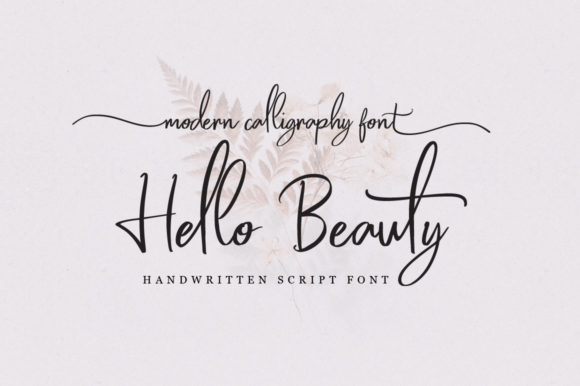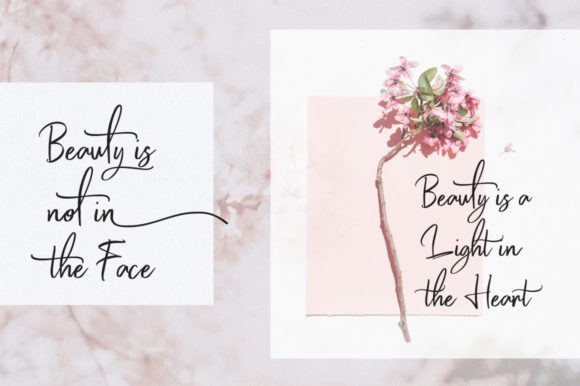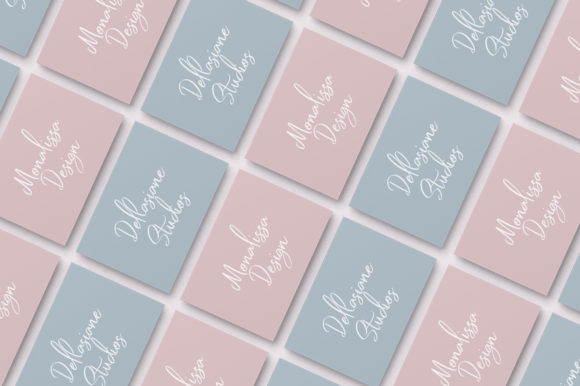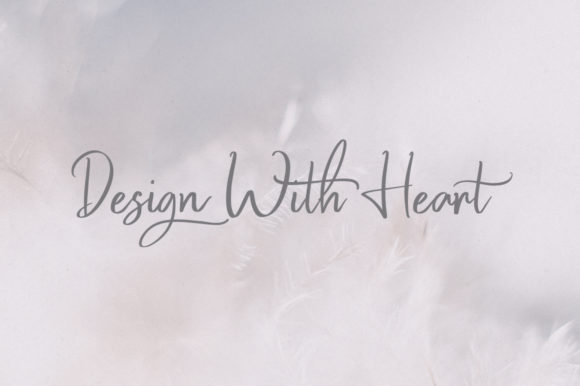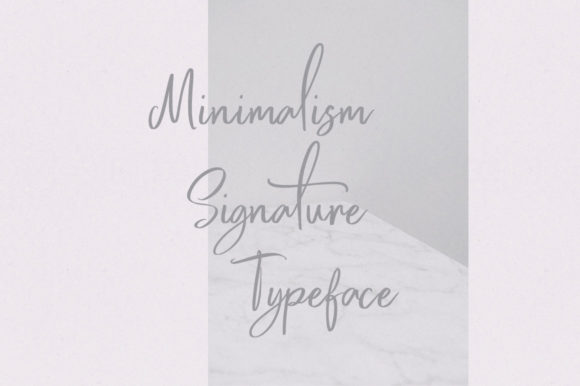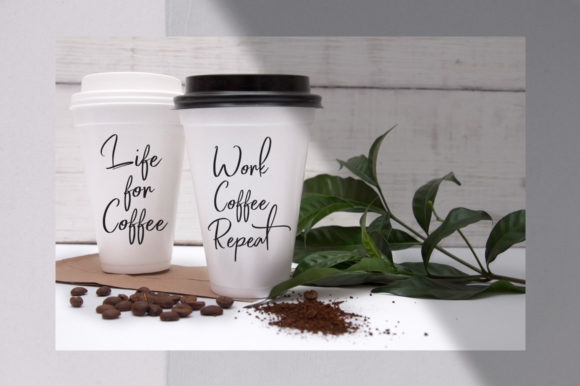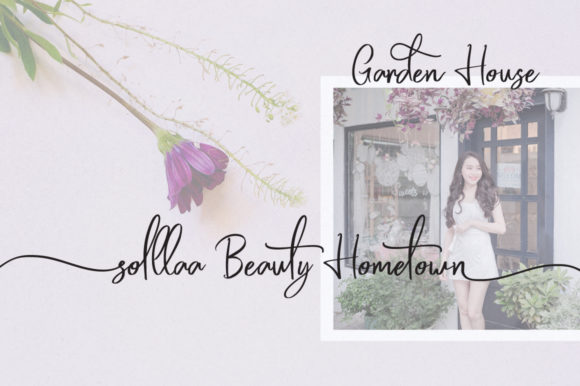
HomeScript FontsHello Beauty Font Script Fonts Hello Beauty Font FacebookXPinterestWhatsApp Hello Beauty Font Poster 2 Hello Beauty Font Poster 3 Hello Beauty Font Poster 4 Hello Beauty Font Poster 5 Hello Beauty Font Poster 6 Hello Beauty Font Poster 7 About Hello Beauty Font Hello Beauty is a stunning and bold script font that fuses elegance and charm. DOWNLOAD NOW People also explored School Font Nichelle font Allezia Sttacy – Handwritten Font Rollingstone Font Mickaila Font Blankco Outline Light Font Bourbon Street Font Salita Script Font Sallas Font 352 0 TagsHello Beauty Font Previous articleFamiliar Taste of Poison FontNext articleRightside Font LEAVE A REPLY Cancel reply Comment: Please enter your comment! Name:* Please enter your name here Email:* You have entered an incorrect email address! Please enter your email address here Website: Save my name, email, and website in this browser for the next time I comment. Personal Use Free Laneway Personal Use Free Read more about this font Abingdon Personal Use Free Read more about this font Mold Papa Personal Use Free Read more about this font Potato Pancakes Personal Use Free Read more about this font BLOG Best Fonts for YouTube Videos: Make Your Thumbnails Stand Out Best Fonts for YouTube Videos: Make Your Thumbnails Stand Out Choosing the right font can make a massive difference in how your YouTube videos perform.... To increase your work productivity, choose the most readable fonts. Free vs Paid Fonts: Why Investing in Premium Fonts Is Worth It How to Cut Any Font on Cricut: Convert a Font to SVG (Free)